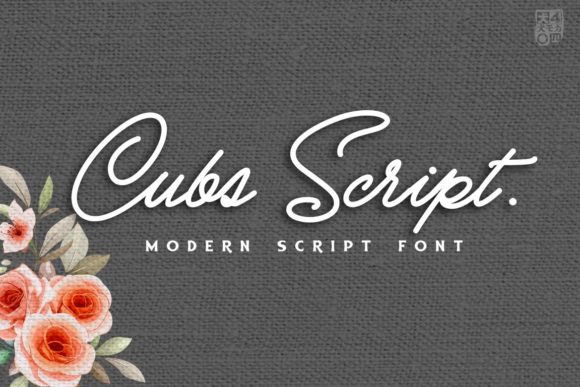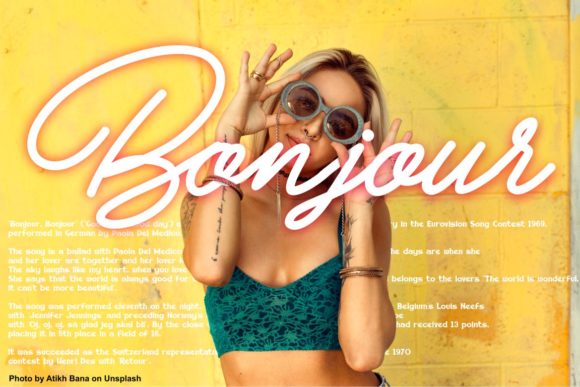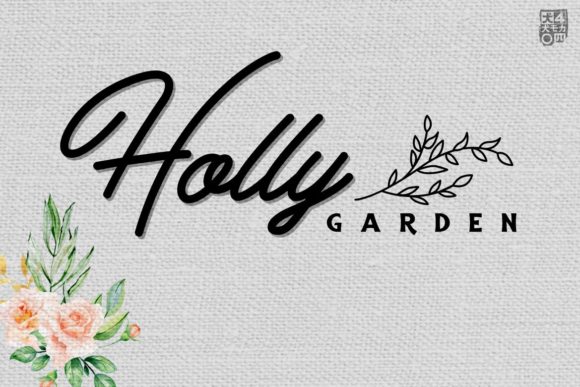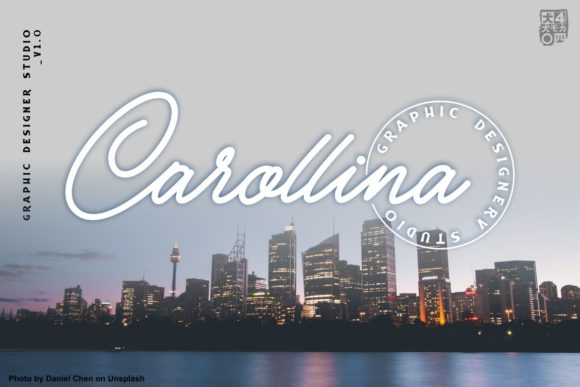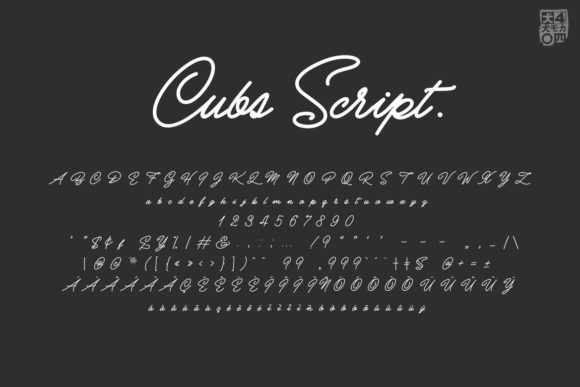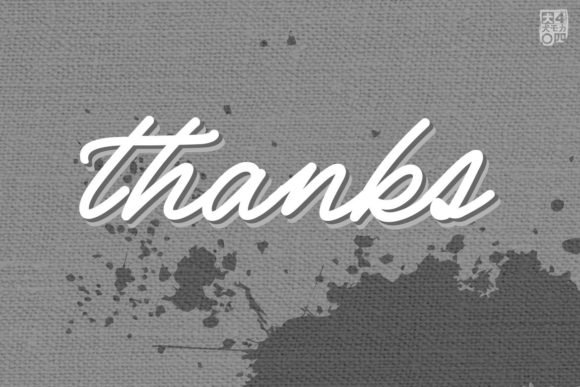
Cubs Script Font
About Cubs Script Font
Cubs Script is a fantastic handwritten font. Incredibly versatile, this font will fit a wide pool of designs.Fall in love with its incredibly stylish look and use it to create spectacular designs!